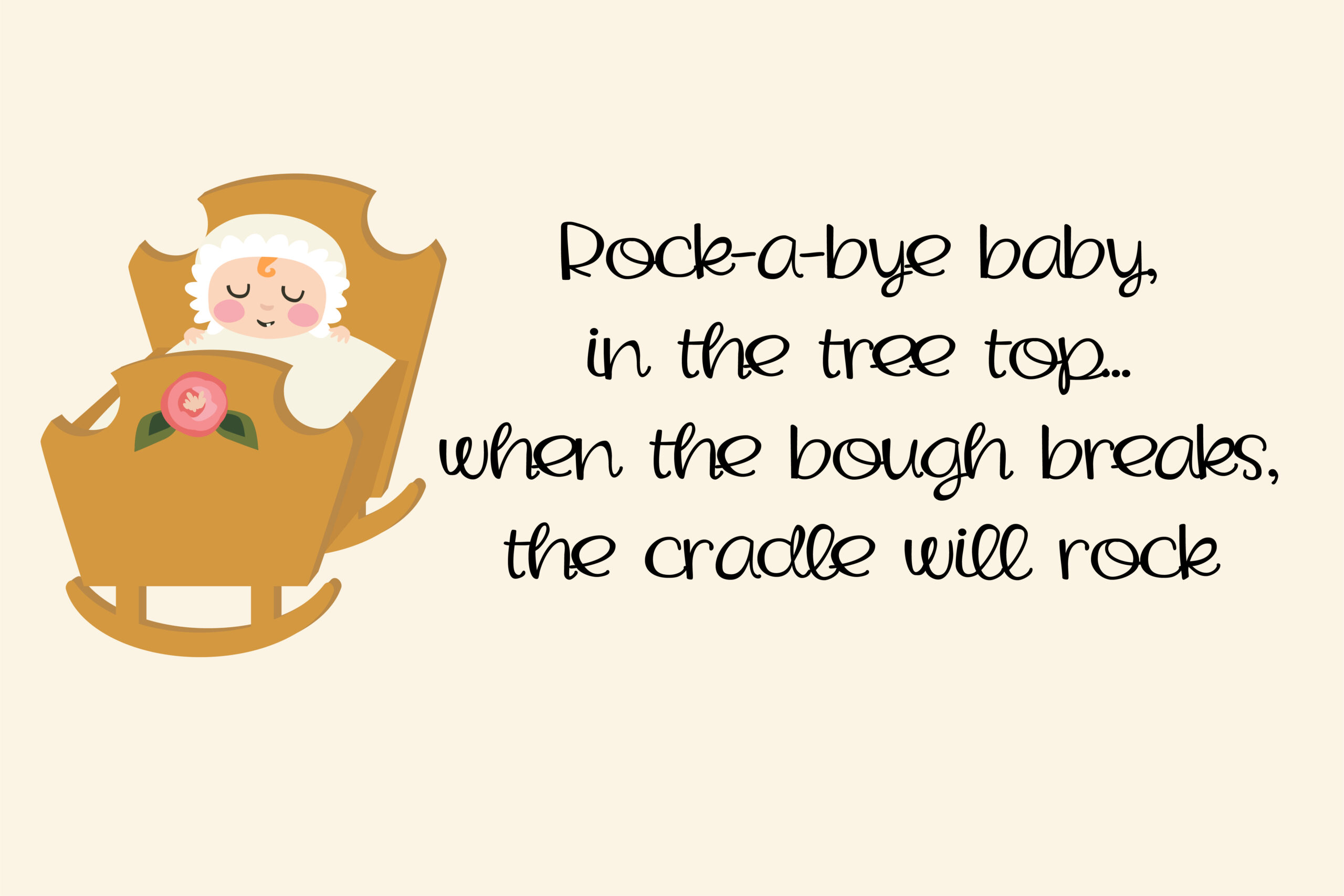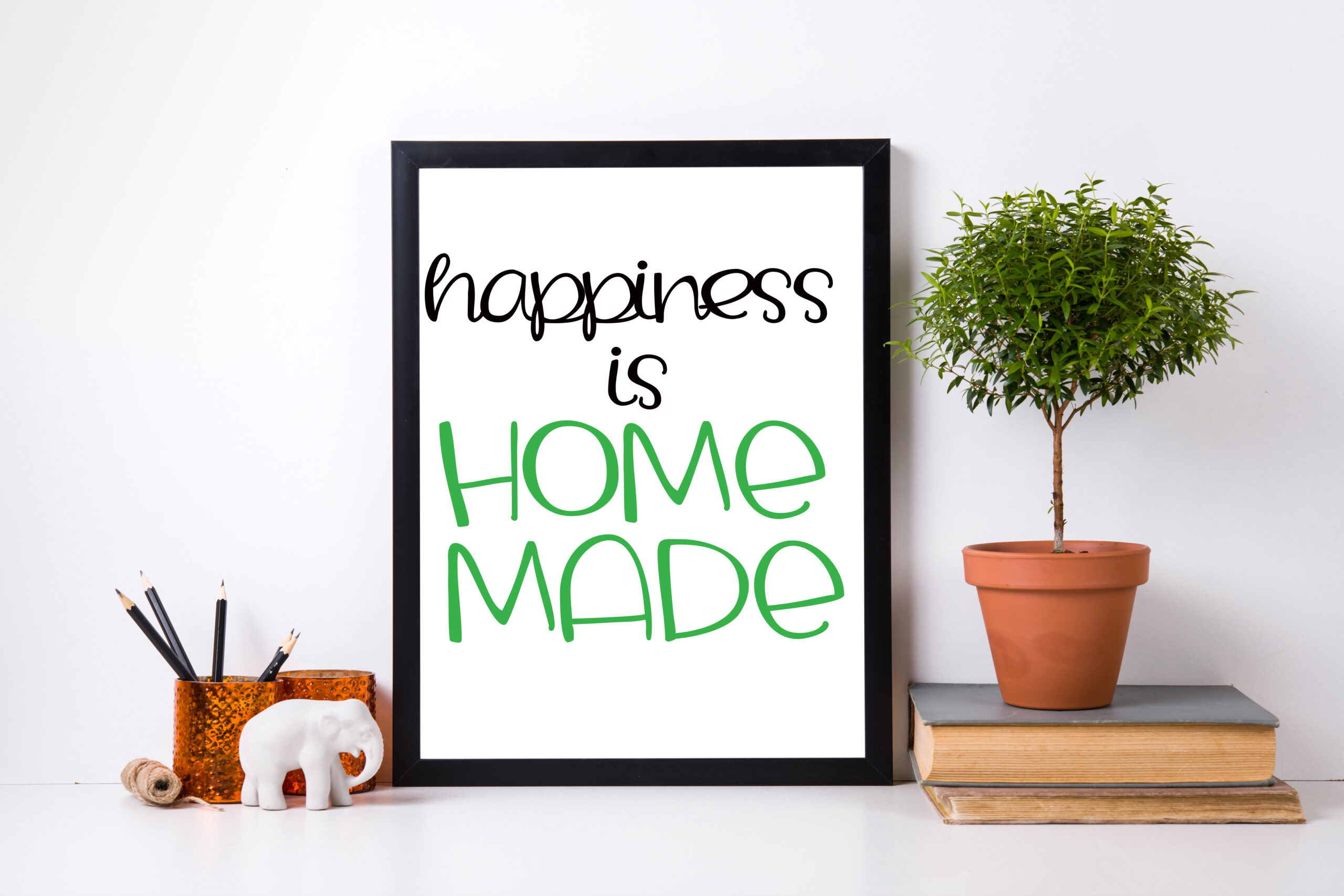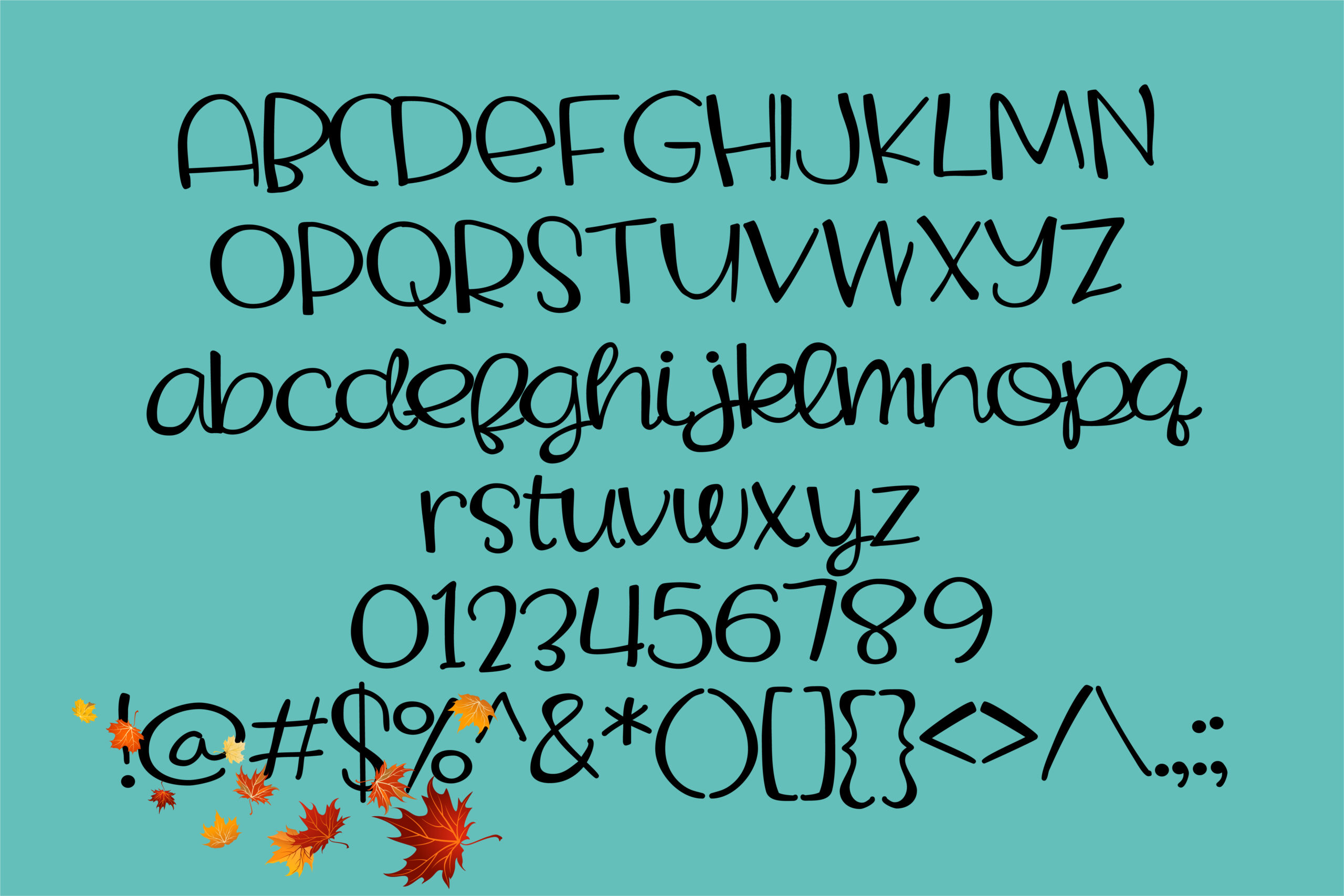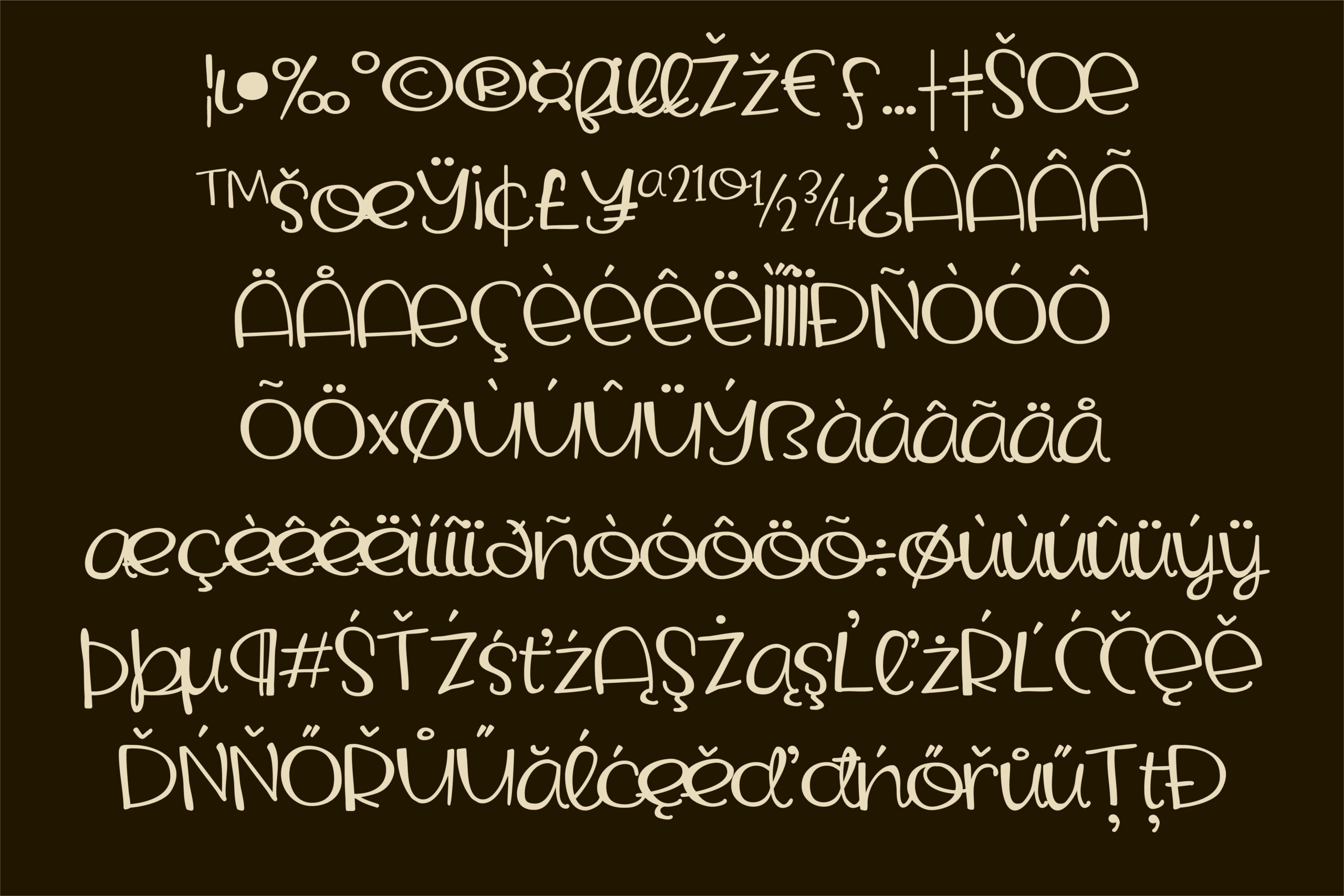
Bough Breaks Font
About Bough Breaks Font
Bough Breaks is a beautiful hand crafted script font has a printed uppercase and scripty lowercase. This handwritten font is a youthful and fun appearance to any project.